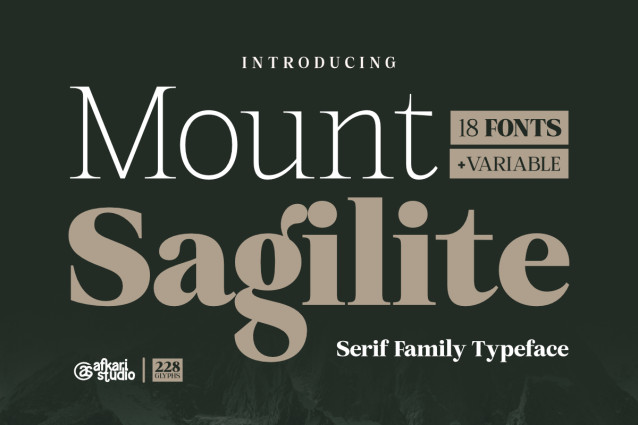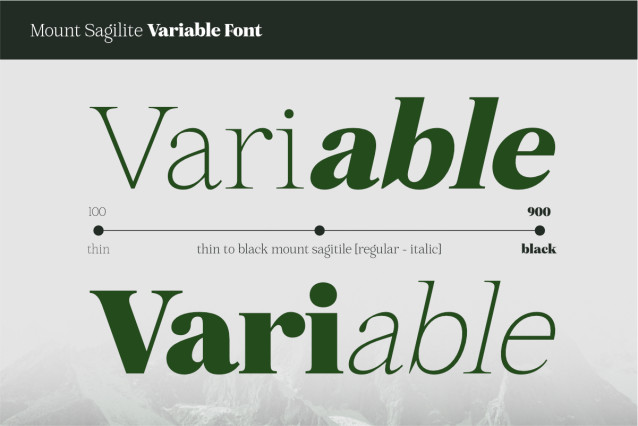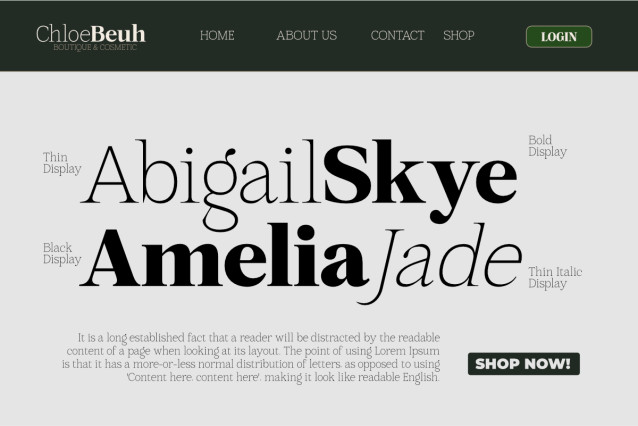
Mount Sagilite – Modern Serif Family Typeface Font
Mount Sagilite is a sophisticated modern serif family typeface designed to bring elegance, versatility, and timeless beauty to every creative project. Featuring 18 meticulously crafted styles plus a fully functional Variable Font, Mount Sagilite offers exceptional flexibility for designers, branding specialists, publishers, and creative professionals seeking premium typography with refined character.